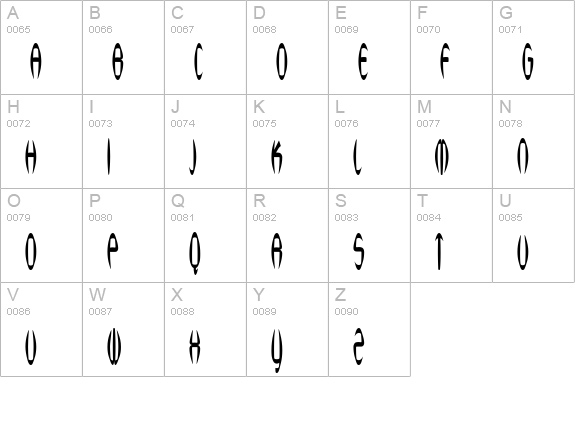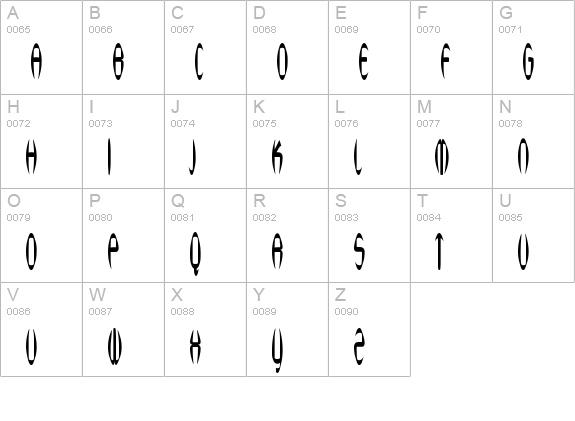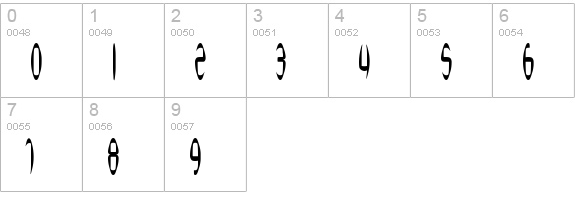
SF Synthonic Pop Condensed Font Details
SF Synthonic Pop Condensed is a distinctive, condensed-width variant in the SF typeface family \xE2\x80\x94 well suited to design and typography projects.
SF Synthonic Pop Condensed is a mesmerizing and vibrant font that effortlessly blends the essence of science fiction with the infectious energy of synth-pop music. With its condensed and sleek design, this font captures the futuristic and retro aesthetic that defined an era of innovation and creativity. This font is not only visually striking but also incredibly versatile, making it perfect for a wide range of design projects. Whether you're creating album covers, movie posters, or digital artwork, SF Synthonic Pop Condensed will infuse your designs with a sense of excitement and nostalgia. The clean lines and distinct letterforms of SF Synthonic Pop Condensed give it a contemporary and modern feel, while its unique character shapes pay homage to the iconic styles of the past. Each letter is meticulously crafted to create a harmonious balance between legibility and artistic expression. But what truly sets SF Synthonic Pop Condensed apart is that it is available for free! Yes, you heard it right. This incredible font can be freely downloaded at FontsMarket.com, allowing you to bring a touch of retro-futurism to your projects without breaking the bank. So why wait? Download SF Synthonic Pop Condensed today and let your creativity soar as you explore the endless possibilities this font offers. Whether you're a designer, illustrator, or simply a lover of typography, this font will undoubtedly become a valuable addition to your creative toolbox. Embrace the spirit of innovation and nostalgia with SF Synthonic Pop Condensed and watch your designs come to life.